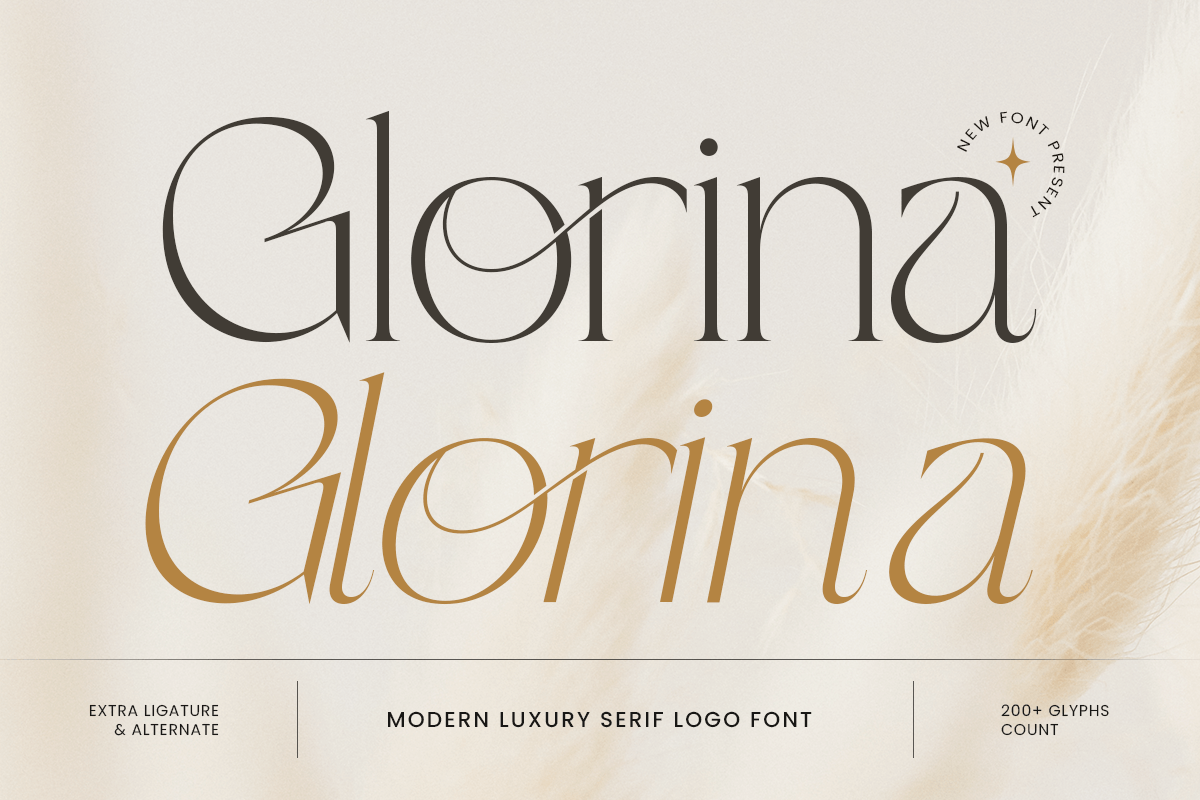
Glorina
-Modern Luxury Serif Logo Font
Glorina - Modern Luxury Serif Logo Font
Glorina is a modern luxury serif logo font designed to bring elegance, refinement, and timeless sophistication to premium branding projects. With graceful serif details, balanced contrast, and stylish letterforms, this typeface is perfect for creating polished logos, editorial layouts, packaging, and high-end visual identities.
Crafted for designers who seek a luxurious and memorable typographic voice, Glorina combines modern beauty with classic serif charm. Its refined proportions make it ideal for fashion brands, beauty products, wedding stationery, boutique packaging, and sophisticated lifestyle branding.
Whether used for logo design, magazine headlines, invitations, or premium marketing visuals, Glorina delivers a clean, elegant, and exclusive look across both print and digital media.
Glorina – Modern Luxury Serif Logo Font Features
• Modern luxury serif design with elegant logo appeal
• Prepared with regular and italic version inside
• Perfect for branding, fashion, packaging, and editorial layouts
• Refined letterforms with premium visual character
• Ideal for beauty, wedding, boutique, and lifestyle industries
• OpenType features for advanced typographic styling
Create refined elegance with Glorina – the ultimate modern luxury serif font for premium branding and sophisticated logo design. ✨👑